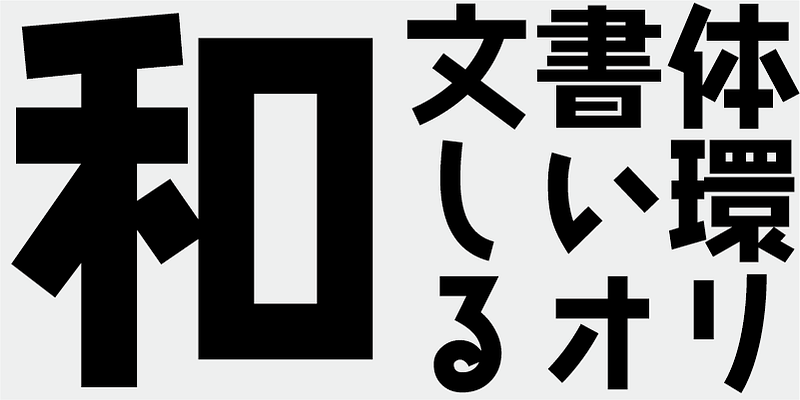
The curved strokes of this typeface are shorter than usual, making this bold titling typeface look effortlessly humorous and joyful. You may want to letter-space characters manually for the best results.